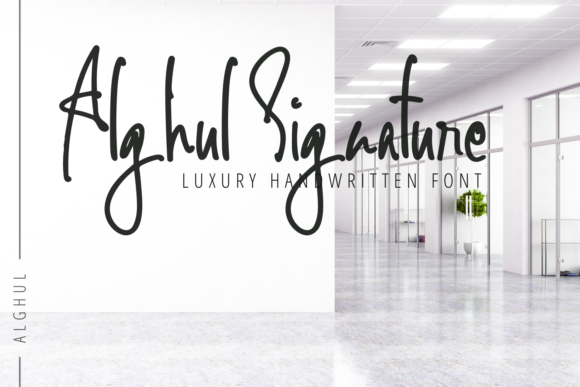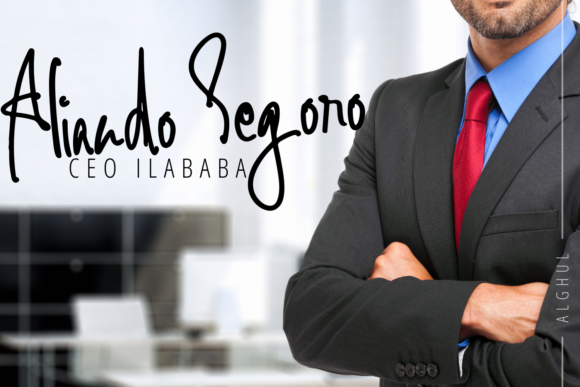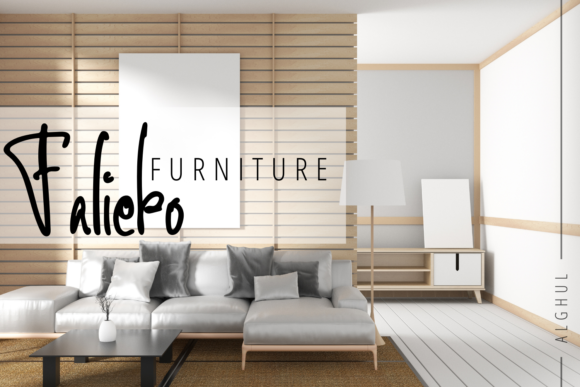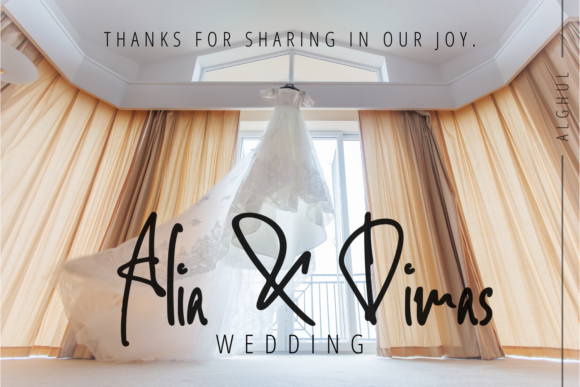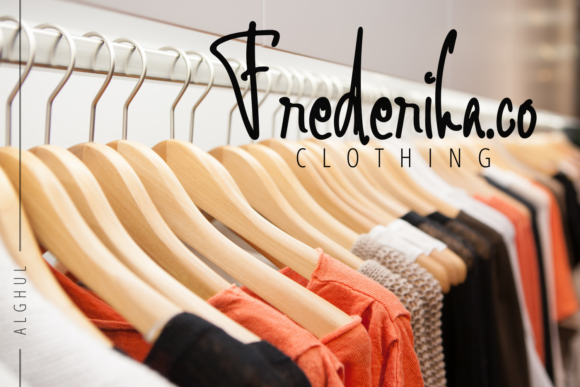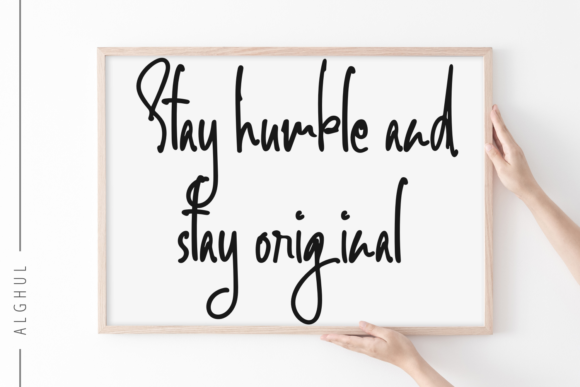
Alghul Signature Font
About Alghul Signature Font
Alghul Signature is an exquisite handwritten font, masterfully designed to become a true favorite. It maintains its classy calligraphic influences while feeling contemporary and fresh. Fall in love with it and bring your projects to the highest levels!